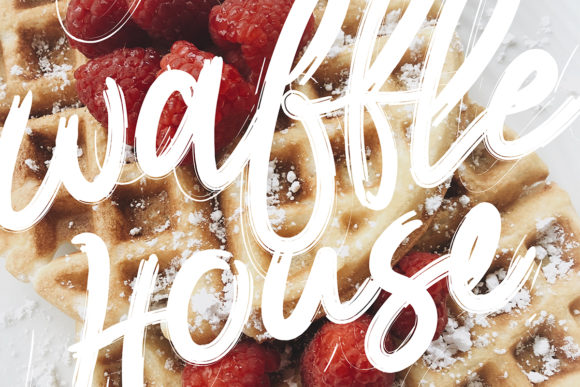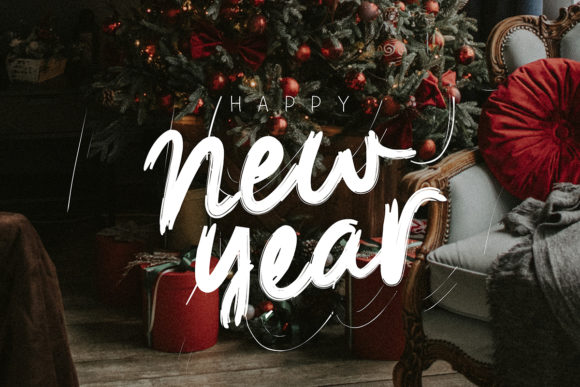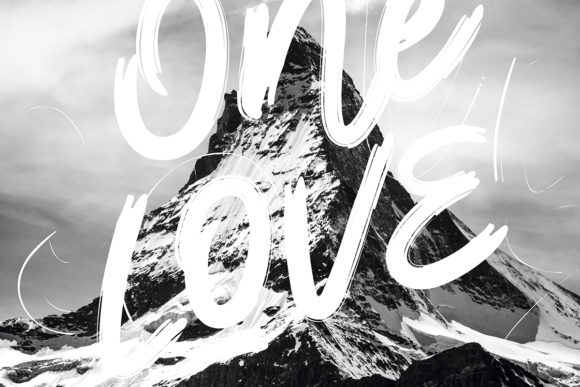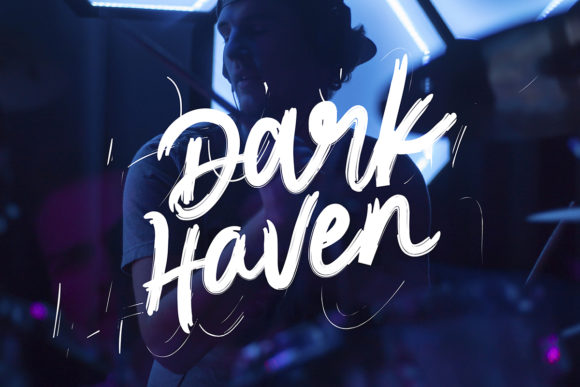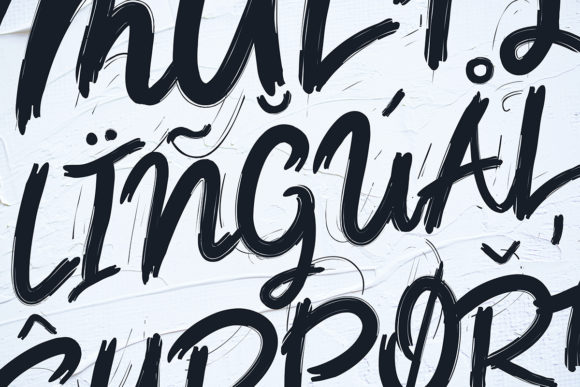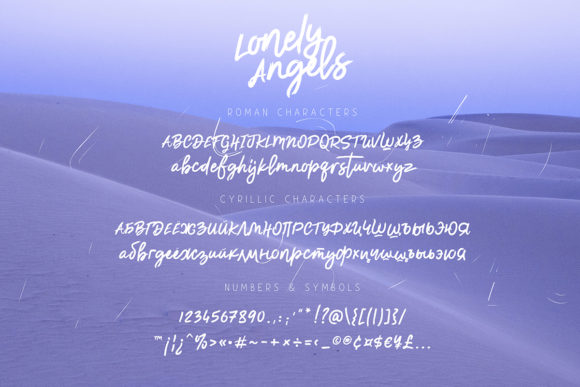
Introduction to Lonely Angels Font
Lonely Angels is a gorgeous and bold brushed handwritten font, crafted to give your headlines and logotype projects a stylish touch.
This font reads as strong, confident, and dynamic and can add tons of nostalgic character to your designs .
Lonely Angels Font offers exceptional quality and versatility, making it a valuable addition to your design toolkit. Whether you’re creating for personal projects or commercial use, Lonely Angels Font delivers professional results.